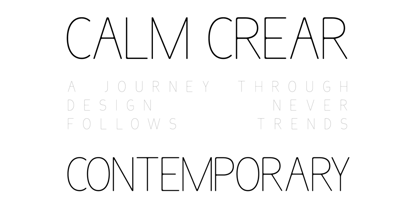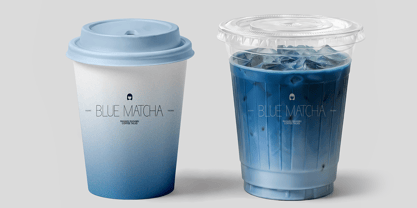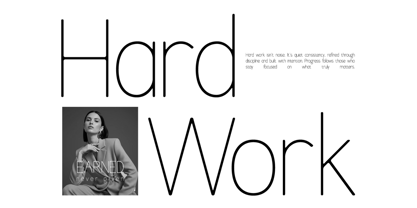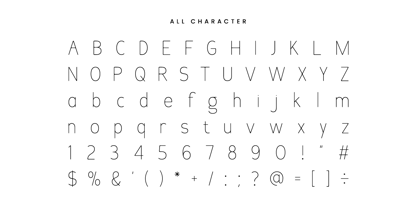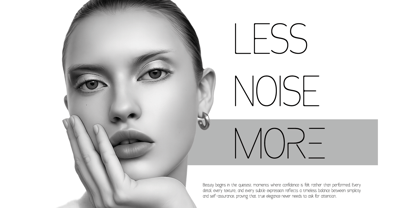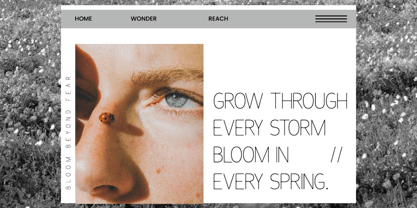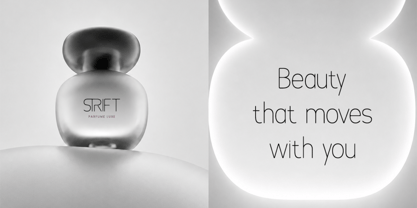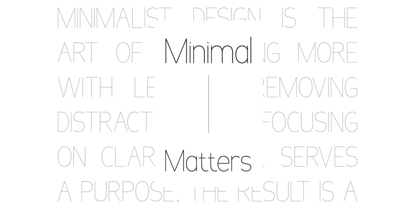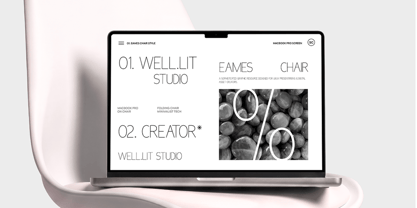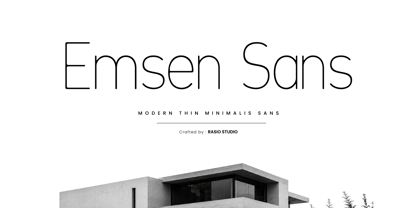
Emsen
by Rasio Studio
The Emsen Font Family was designed by Fajar Indra and published by Rasio Studio. Emsen contains 1 styles. More about this family
Emsen is a modern minimalist sans serif typeface built around exceptionally thin strokes, clean geometry, and an airy visual rhythm. The letterforms have a delicate monoline appearance with open counters, simple terminals, and carefully restrained proportions, giving the family a lightweight and contemporary character. Its understated construction creates a sense of clarity and sophistication, making the typeface especially effective in designs where typography needs to feel refined without becoming visually dominant.
Relevance and Use Case is perfect for contemporary design projects that depend on clarity, negative space, restrained proportions, and a polished visual hierarchy. Its lightweight construction makes it particularly useful for architectural identities, interior design studios, creative portfolios, fashion campaigns, boutique branding, product presentation graphics, editorial covers, lifestyle publications, gallery materials, digital interfaces, promotional artwork, signage concepts, and modern corporate communications.
Designers: Fajar Indra
Foundry: Rasio Studio